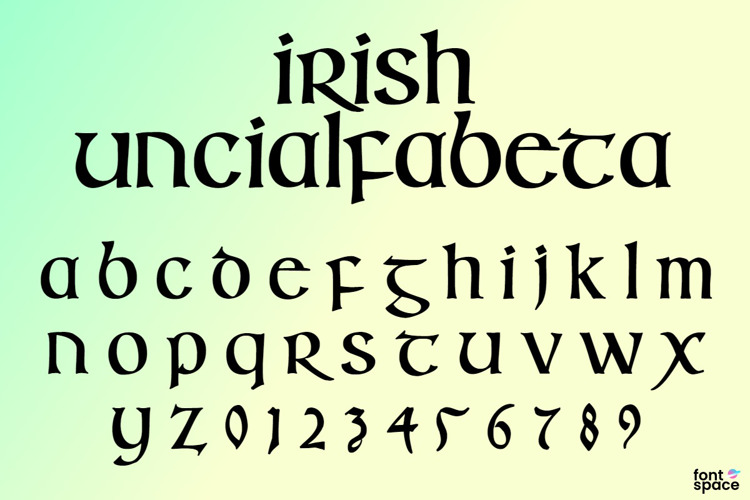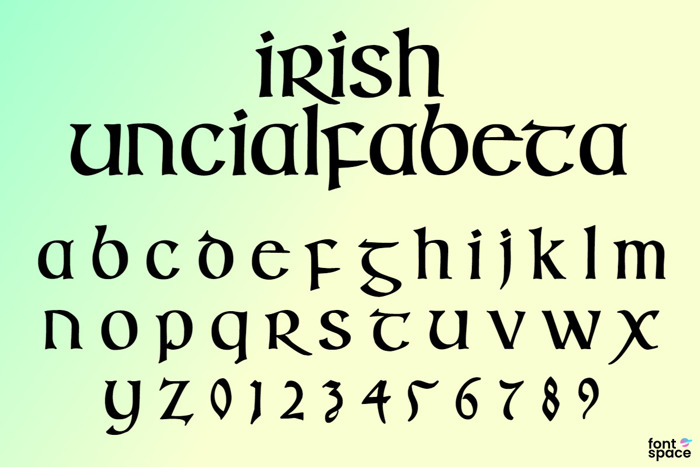
Irish Uncialfabeta Font
About Irish Uncialfabeta Font
More info from Manfred Klein
Take a look at this Uncial Alphabet font by Manfred. Great for St. Patrick's Day and anything Irish or Medieval.